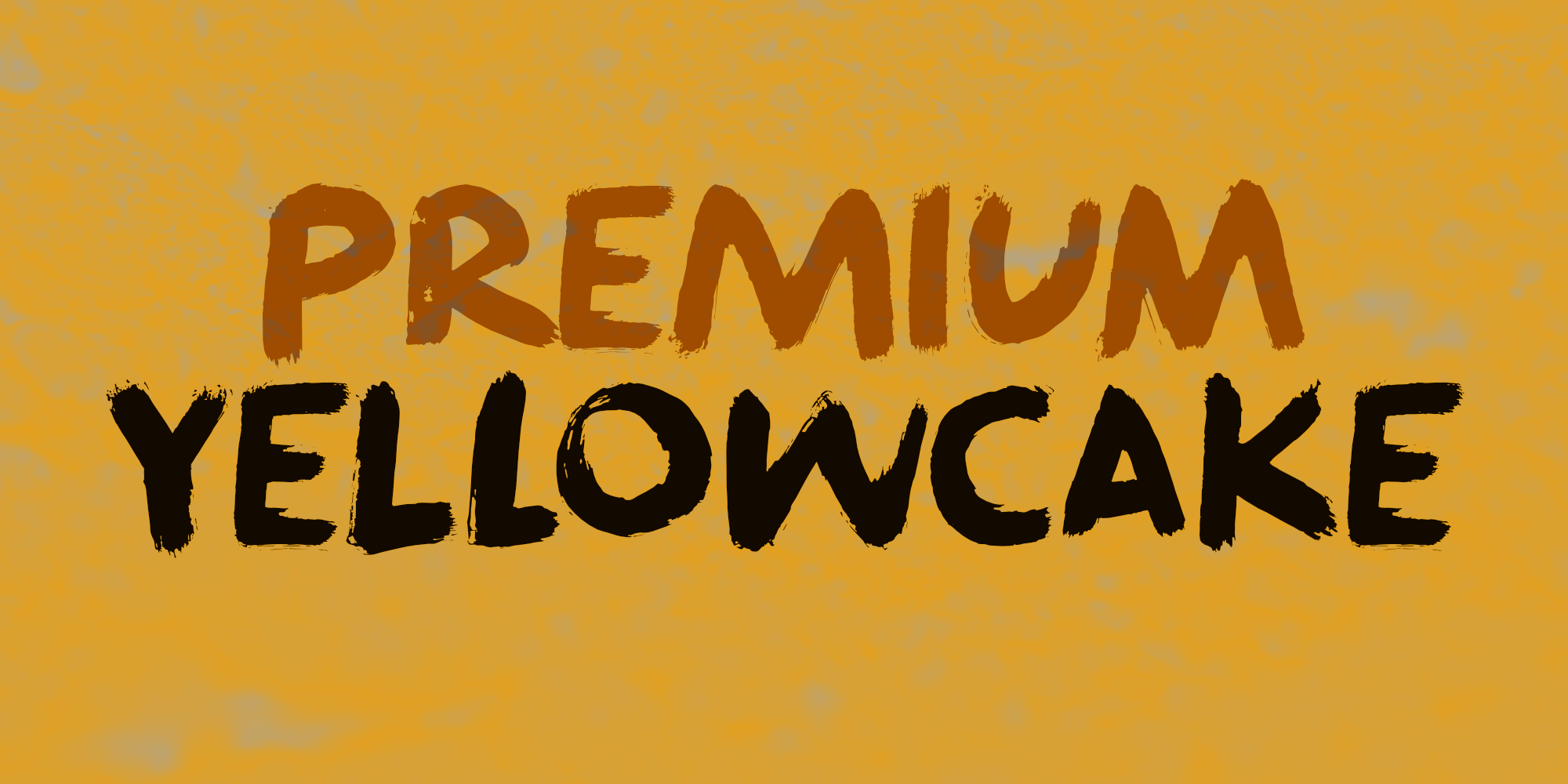
Yellowcake is a type of uranium concentrate powder. It was named yellowcake, because of early extraction methods. Don’t worry, I am not building a nuclear reactor or something – I was watching a show where someone mentioned yellowcake and I immediately thought it would be a great font name!
Premium Yellowcake is a font I made with a brush and Chinese ink. It is a bit rough, but it will look great on packaging and book covers, so have a ball.